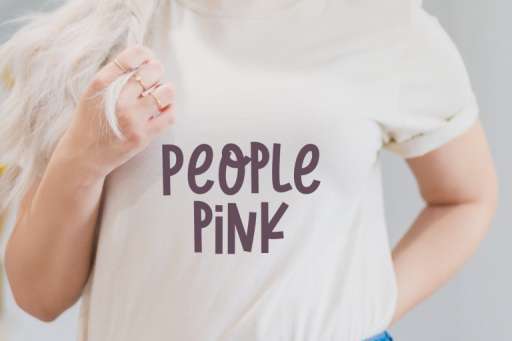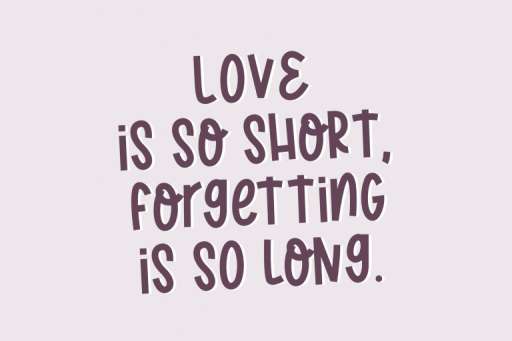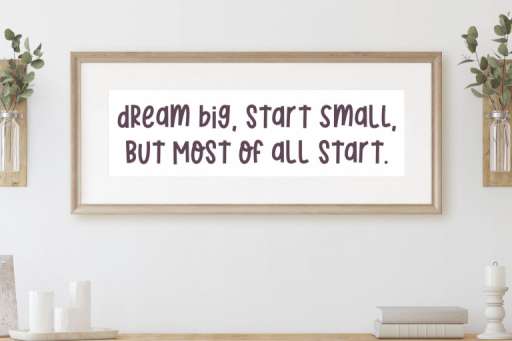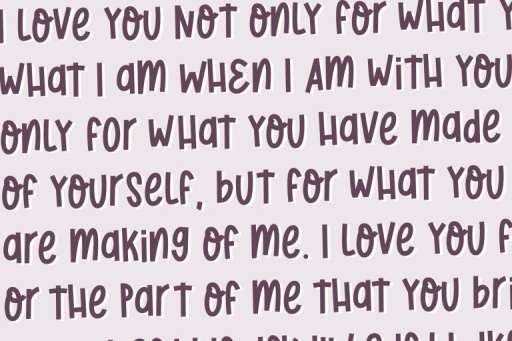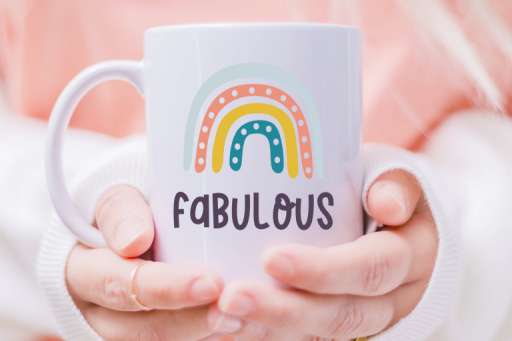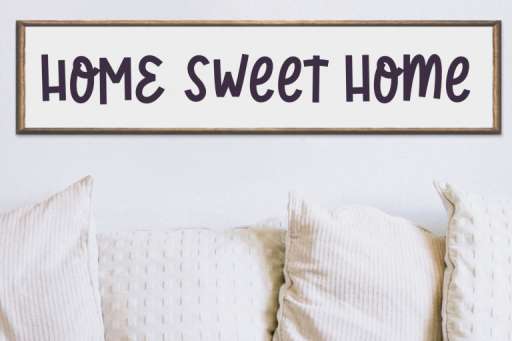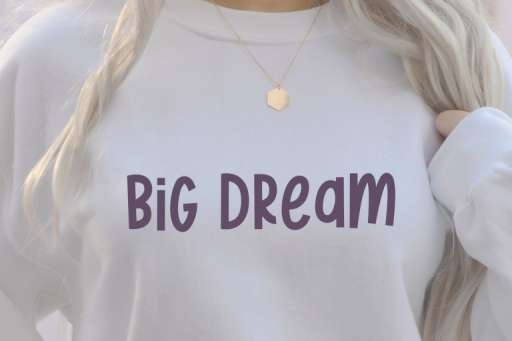
Twenties Fashion Font
Twenties Fashion – Handwritten Sans Serif Font
Twenties Fashion is a fun handwritten font. This font perfects for branding, farmhouse design, shirt design, mug, web, social media, quotes, prints, and more!
Twenties Fashion Features :
• Multilingual